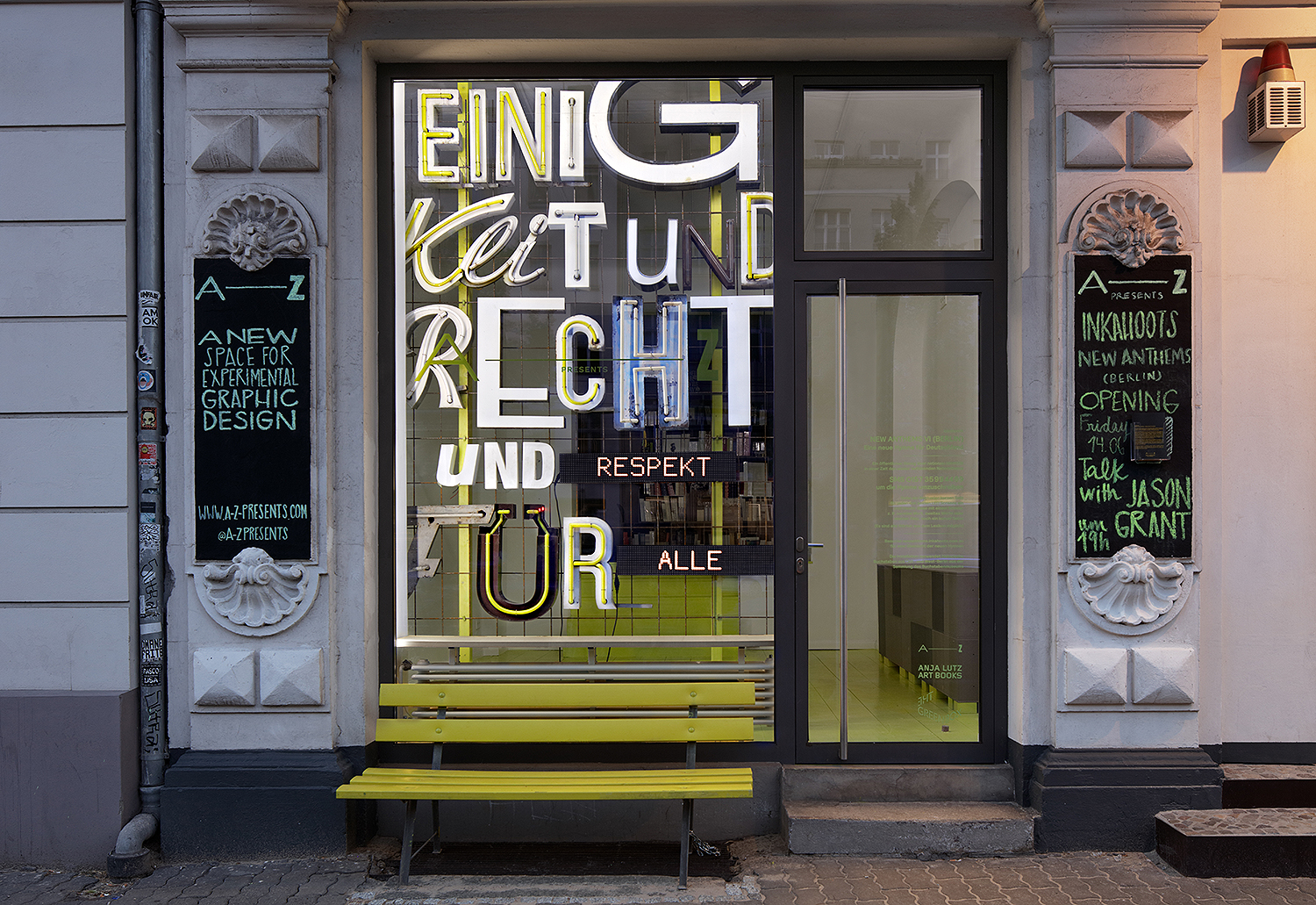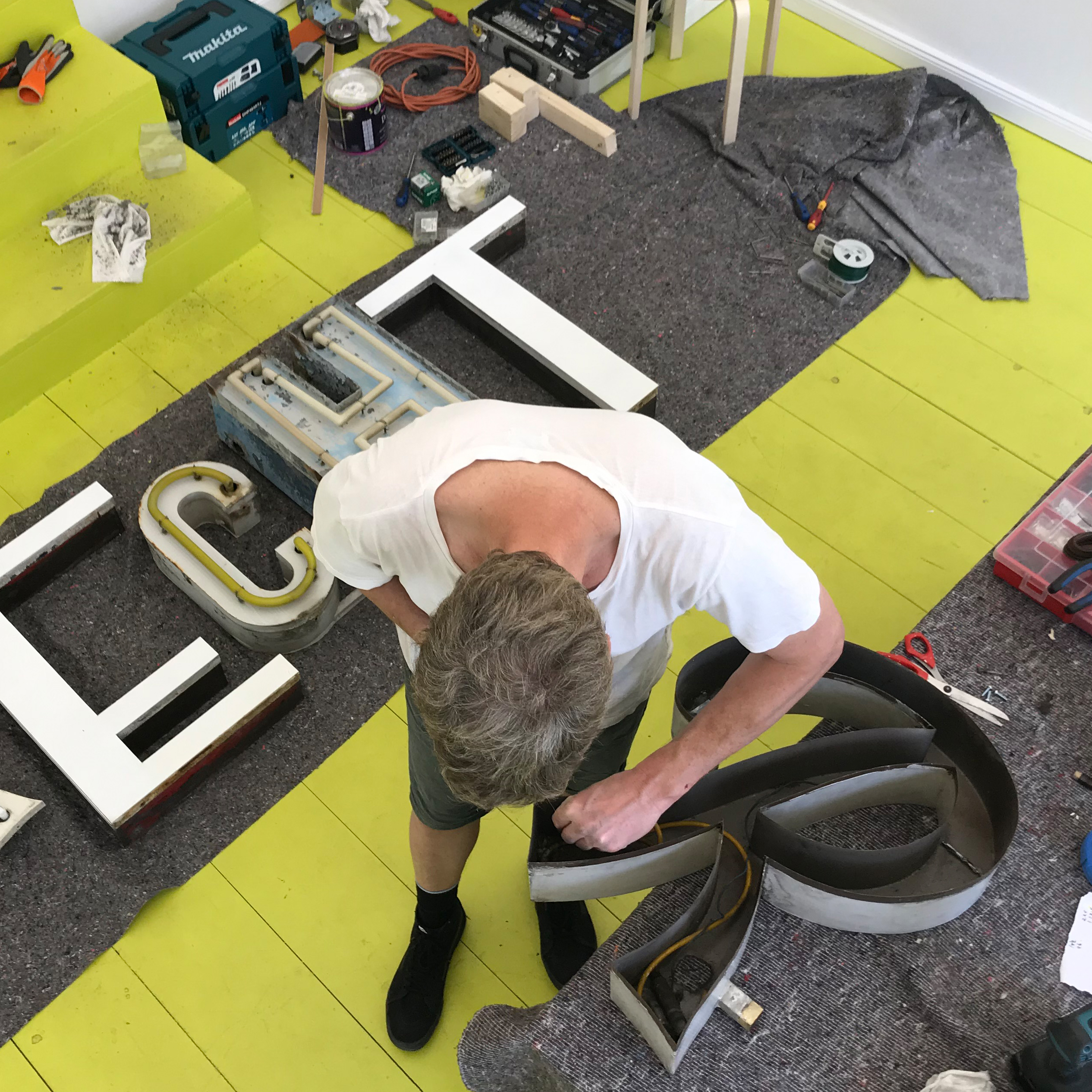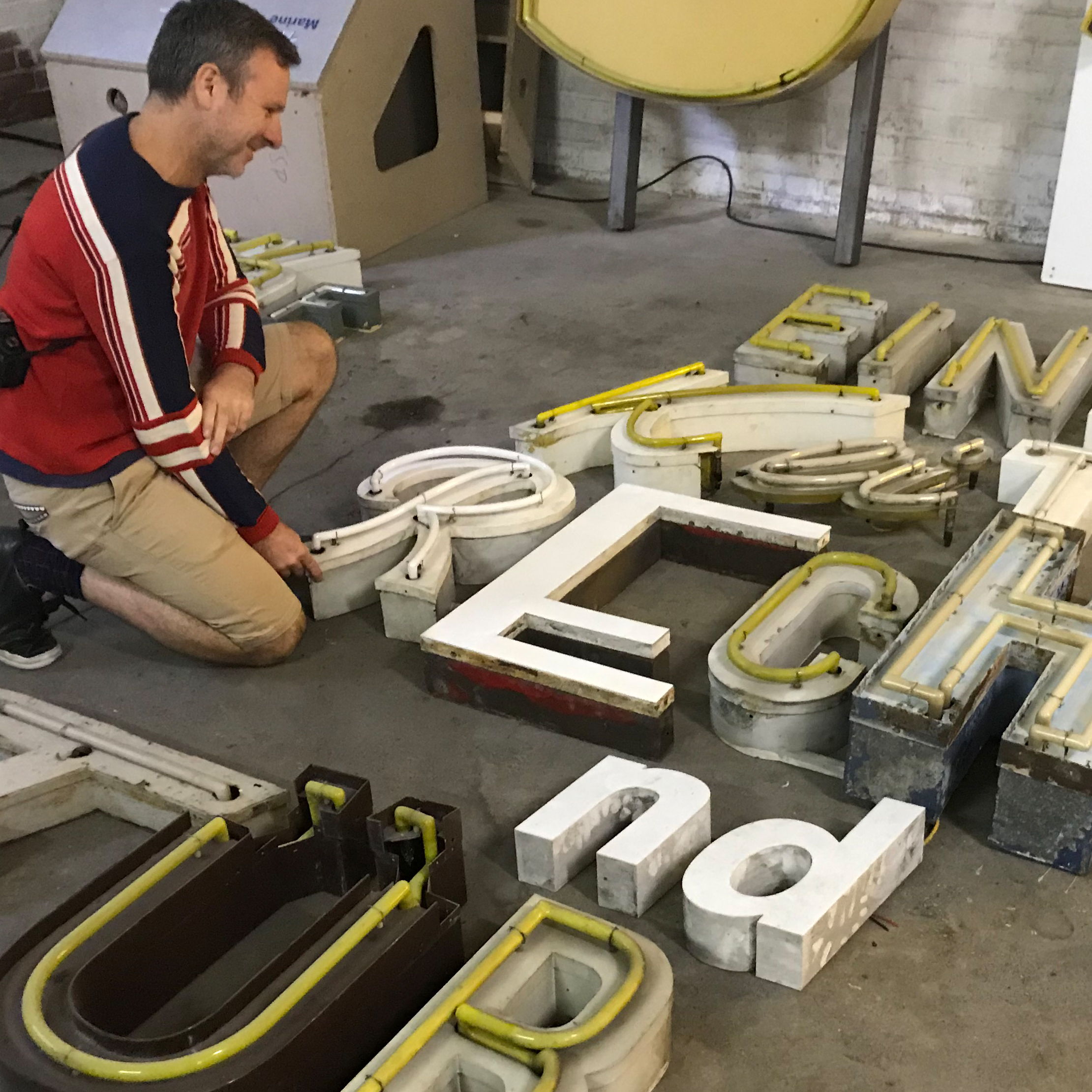
Inkahoots and A–——Z want you to invent a new anthem for Germany in times of bigotry
With the growing global resurgence of ultra-nationalism, social, cultural and religious stereotypes and symbols are being used to exclude and divide” notes A–——Z, an initiative of book designer Anja Lutz and The Green Box – Kunst Editionen of the interactive installation by Brisbane design collective Inkahoots which speaks volumes against bigotry and hate.
“Today in Germany the successful postwar rejection of the radical right appears to be undermined by the electoral gains of the anti-European Union, anti-immigrant, anti-Muslim Alternative für Deutschland and with the serious violence of riots, like the one in Chemnitz” adds A–——Z of New Anthems VI (Berlin) – A New Anthem for Germany. The interactive, totally typographic, project is literally an invitation to form an open public dialogue on contemporary nationalism and national identity through creative participation.
Created by Australian design studio Inkahoots the installation displays the most commonly cited line in Das Liedes der Deutschen (3. verse) by August Heinrich Hoffmann von Fallersleben, the current German national anthem: ‘Einigkeit und Recht und Freiheit für das deutsche Vaterland!’ [‘Unity and justice and freedom for the German fatherland’], where the words ‘Freiheit’ and ‘das deutsche Vaterland’ are omitted and replaced with LED screens enabling participants to input their own words via SMS, and rewrite the text.
The public contributions are cataloged online here and become a dynamic archive of debate around issues of national identity, inclusion, and exclusion. The New Anthems installations affirm national identity as dynamic and constructed, rather than fixed and natural: to misquote Richard White (1981) Inventing Australia: “There is no ‘real’ Germany waiting to be uncovered. National identity is an invention.”
The interactive, totally typographic, project is literally an invitation to form an open public dialogue on contemporary nationalism and national identity through creative participation
For past versions, Inkahoots have created custom-designed sculptural typography using neon, fiber optics, recycled cardboard and timber, and giant helium-filled balloons. For this brand new anthem for Germany the studio developed a site-specific interactive typographic sculpture using a mix of civic and commercial historical signage from the collection of the Buchstabenmuseum -the first museum in the world to collect letterforms from public spaces and display them as part of urban history- which are kindly provided for the duration of the installation.
These historic letters from East- and West-Berlin are assembled with internet-connected LED screens enabling the display of user-generated content while the dedicated website lists all contributions in real-time with all versions of this New Anthem archived so they can be viewed offsite by anyone.
“The work attempts to integrate graphic design’s potential regarding expressive modes of visual language with user-generated digital interactivity, as a relational artwork that functions as a forum for creative public dialogue and cultural critique” adds A–——Z of Inkahoot's project.
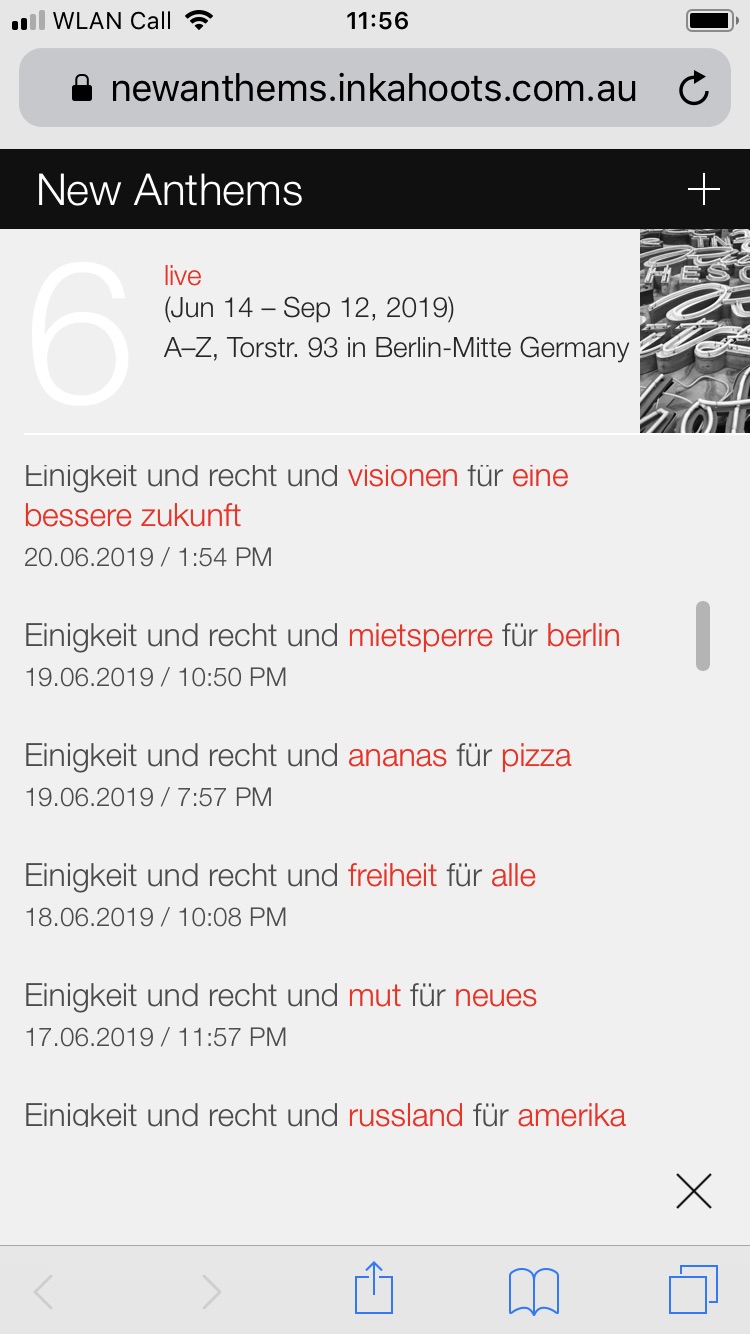
For this Germany's customised brand new anthem Inkahoots developed a site-specific interactive typographic sculpture using a mix of civic and commercial historical signage from the collection of the Buchstabenmuseum